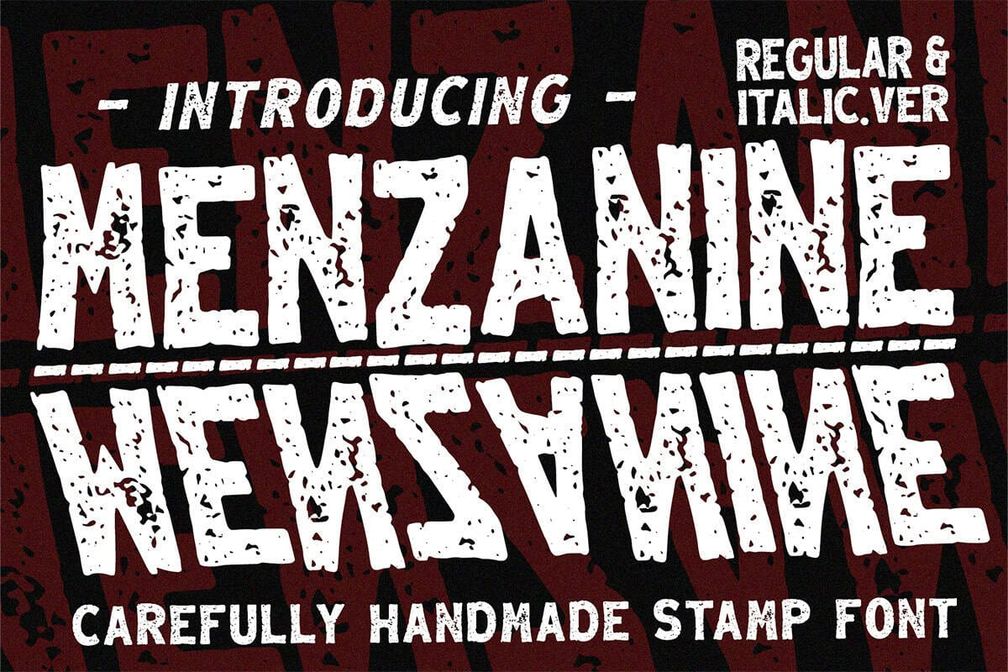
MENZANINE – STAMP TEXTURED FONT FAMILY
The Menzanine Stamp Textured Font Family is a versatile and rugged typeface collection that brings a vintage and authentic charm to your designs. With its distressed and stamped appearance, this font family offers a range of styles and weights that are perfect for vintage-inspired branding, posters, labels, and other creative projects.
1. Vintage and Authentic Style: The Menzanine Font Family exudes a vintage and authentic aesthetic. Its distressed and stamped texture gives it a weathered and aged look, evoking the nostalgia and charm of vintage design.
2. Stamp Textured Variants: The font family includes multiple variants with varying levels of texture and distress, providing options for different design needs. Choose from lightly stamped to heavily distressed styles to achieve the desired vintage effect.
3. Versatile Font Family: This font family offers different styles and weights, including regular, bold, italic, and more. It provides flexibility and creative freedom in your designs, allowing you to experiment and create unique typographic combinations.
4. Perfect for Branding and Labels: The Menzanine Font Family is well-suited for branding and label designs that require a vintage and artisanal touch. Use it to create logos, packaging, and labels that stand out with a rugged and authentic appearance.
5. Uppercase and Lowercase Letters: The font family includes both uppercase and lowercase letters, ensuring consistency and visual harmony in your designs. Mix and match the cases to create captivating and balanced typography.
6. Numerals and Punctuation: In addition to the alphabet, the Menzanine Font Family includes a comprehensive set of numerals, punctuation marks, and symbols. This ensures full support for various design projects and typographic needs.
Embrace the vintage charm of the Menzanine Stamp Textured Font Family. Let its distressed and stamped appearance add an authentic and rugged touch to your branding, posters, and labels. Create designs that resonate with nostalgia and evoke the craftsmanship of vintage typography.